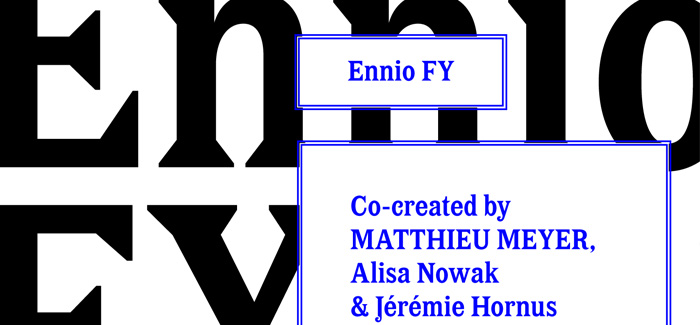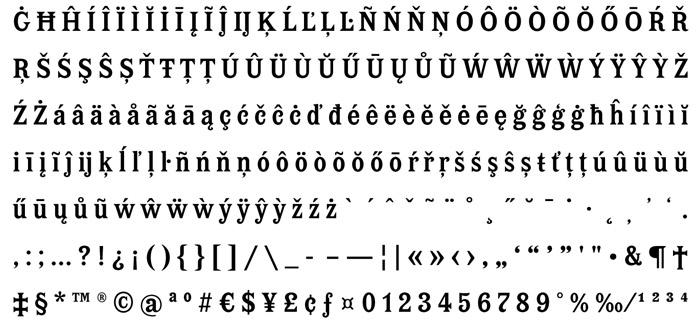
Ennio FY font
Ennio FY font by Matthieu Meyer, Alisa Nowak & Jérémie Hornus (Fontyou foundry, check their Marianina FY font, Jack FY font, LeanO Sans FY font) is an original Latin font revival, inspired by a wooden type font of the 19th century found in a 50s French graphic handbook (‘Manuel de calcul pratique numérique et graphique par A.Desfretière’, Masson et Cie, 1956). It’s shape is slightly condensed, with a contrast between triangular serifs and extra well round shapes, giving the typeface an exceptional and retro style.
Ennio FY font offers standard OpenType features like standard ligatures, ordinals, fractions, etc. Suitable for text or display use, Ennio FY font will show all its originality and elegancy whenever you print it out.